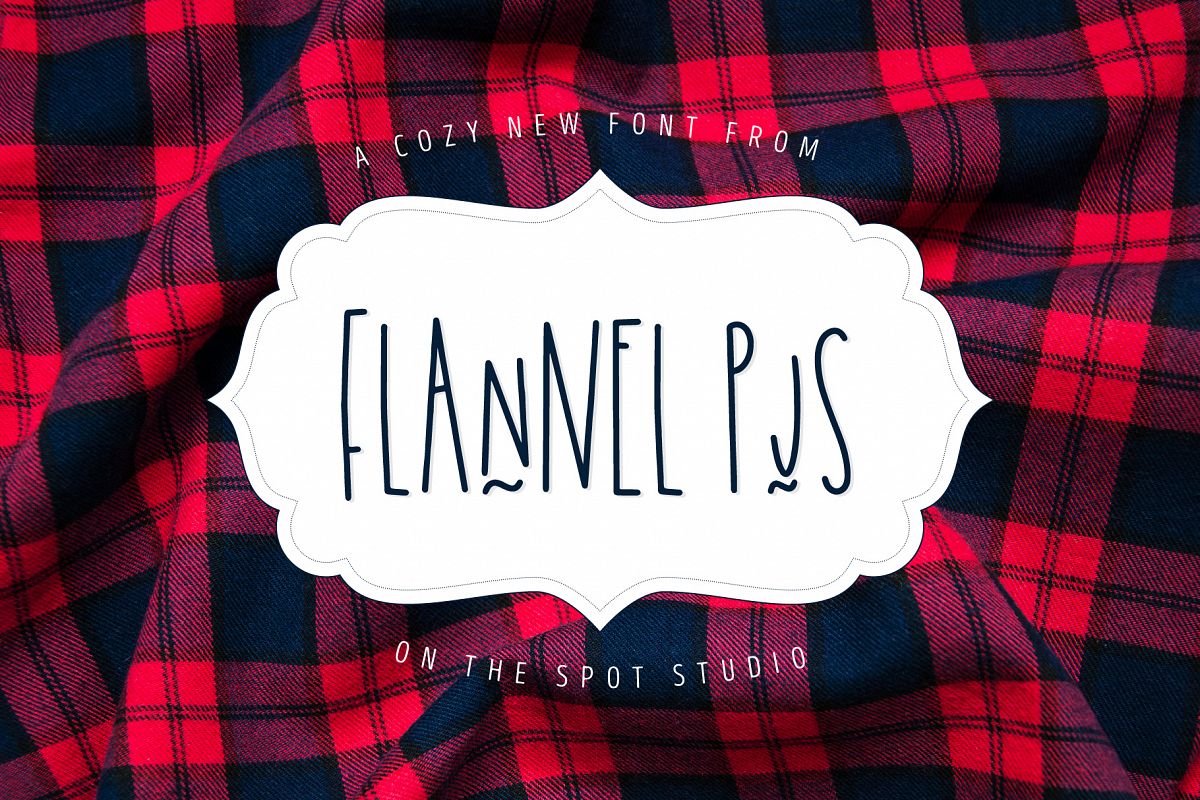
Flannel PJs
Flannel PJs is a cute and cozy new font from OTSS! Includes 2 sets of stylistic alternates (upper and lower) for hundreds of unique combos for your projects!